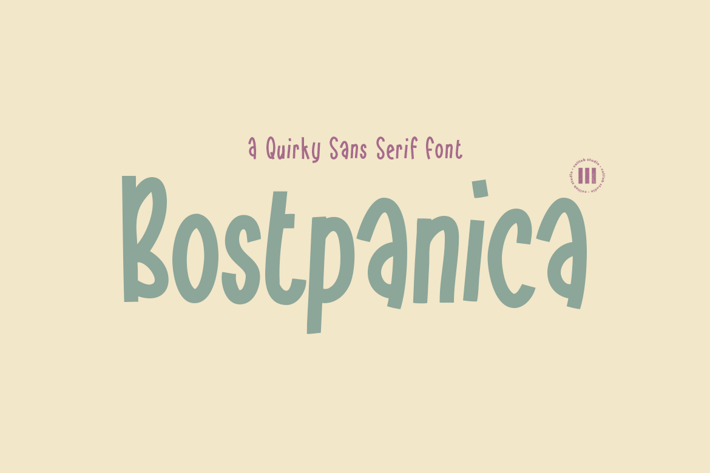
Bostpanica - A Playful Font
Bostpanica is A Playful Font that is suitable for design projects; playful theme, logo, branding, poster, quotes, display, beautiful stationary art, eye-catching social media posts, and cute greeting cards, and any other designs.
Full uppercase and lowercase glyphs
Numbers, punctuations, and symbols